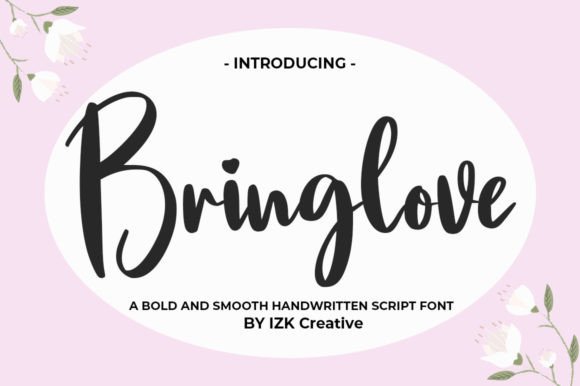
The Bringlove Font: A Fresh and Modern Handwritten Style
I’ll never forget the design moment when I stumbled upon the Bringlove font. I was working on a wedding invitation project for a dear friend, and I was struggling to find the perfect font that would capture the warmth and elegance of the occasion. The client wanted something fresh, modern, and inviting, but not too formal or over-the-top. After hours of scouring through font libraries and design blogs, I finally stumbled upon Bringlove, and it was love at first sight! 💕
An Honest Review of Bringlove
So, what makes Bringlove so special? Let’s dive into the good stuff! 😊
- ✨ Fresh and modern handwritten style with a clean and inviting appearance
- ✅ Smooth curves and subtle variations in stroke width for a natural and organic feel
- ✅ Perfect for designs that require a sense of warmth and approachability, such as wedding invitations, greeting cards, or branding for lifestyle or wellness brands
- ✅ Versatile font that can be used for both body text and headlines
Of course, no font is perfect, and Bringlove has a few small quirks to keep in mind:
- 🤔 Limited character set, which may not be suitable for complex or multilingual designs
- ⚠️ May not be the best choice for very small font sizes or low-resolution designs
The Story Behind Bringlove
Bringlove was designed with the intention of creating a fresh and modern handwritten font that would capture the warmth and approachability of everyday communication. The designer wanted to create a font that would feel like a handwritten letter or a personal note, but with a clean and elegant appearance that would work well in a variety of design contexts.
| Font Name | Bringlove Font |
| Author | IZKcreative |
| What is Bringlove? | Bringlove is a fresh and modern handwritten font with a clean and inviting appearance. |
| What is Bringlove best used for? | Bringlove is perfect for designs that require a sense of warmth and approachability, such as wedding invitations, greeting cards, or branding for lifestyle or wellness brands. |
| Is Bringlove easy to read? | Yes, Bringlove is a highly legible font that works well in a variety of design contexts, from body text to headlines. |